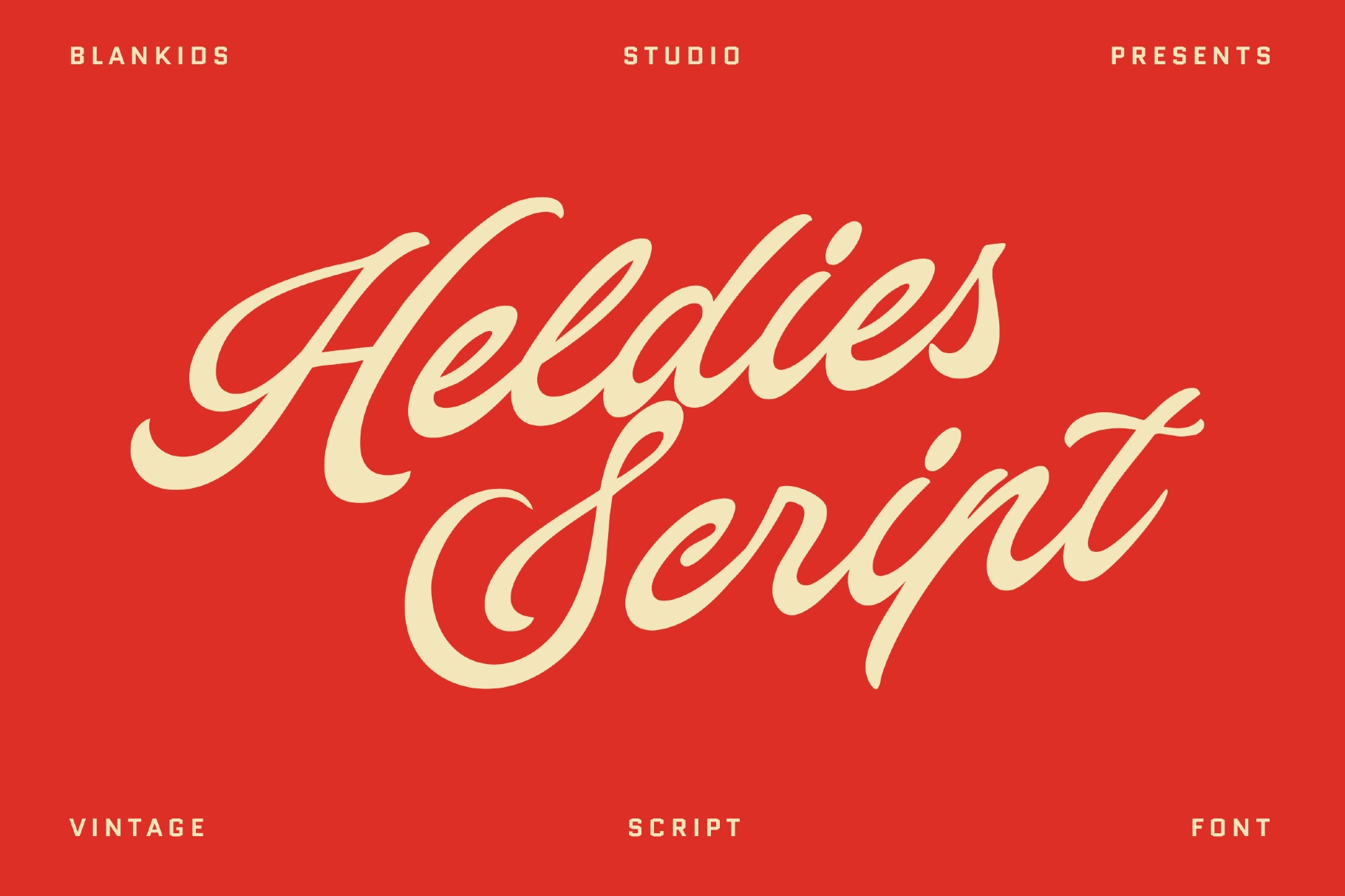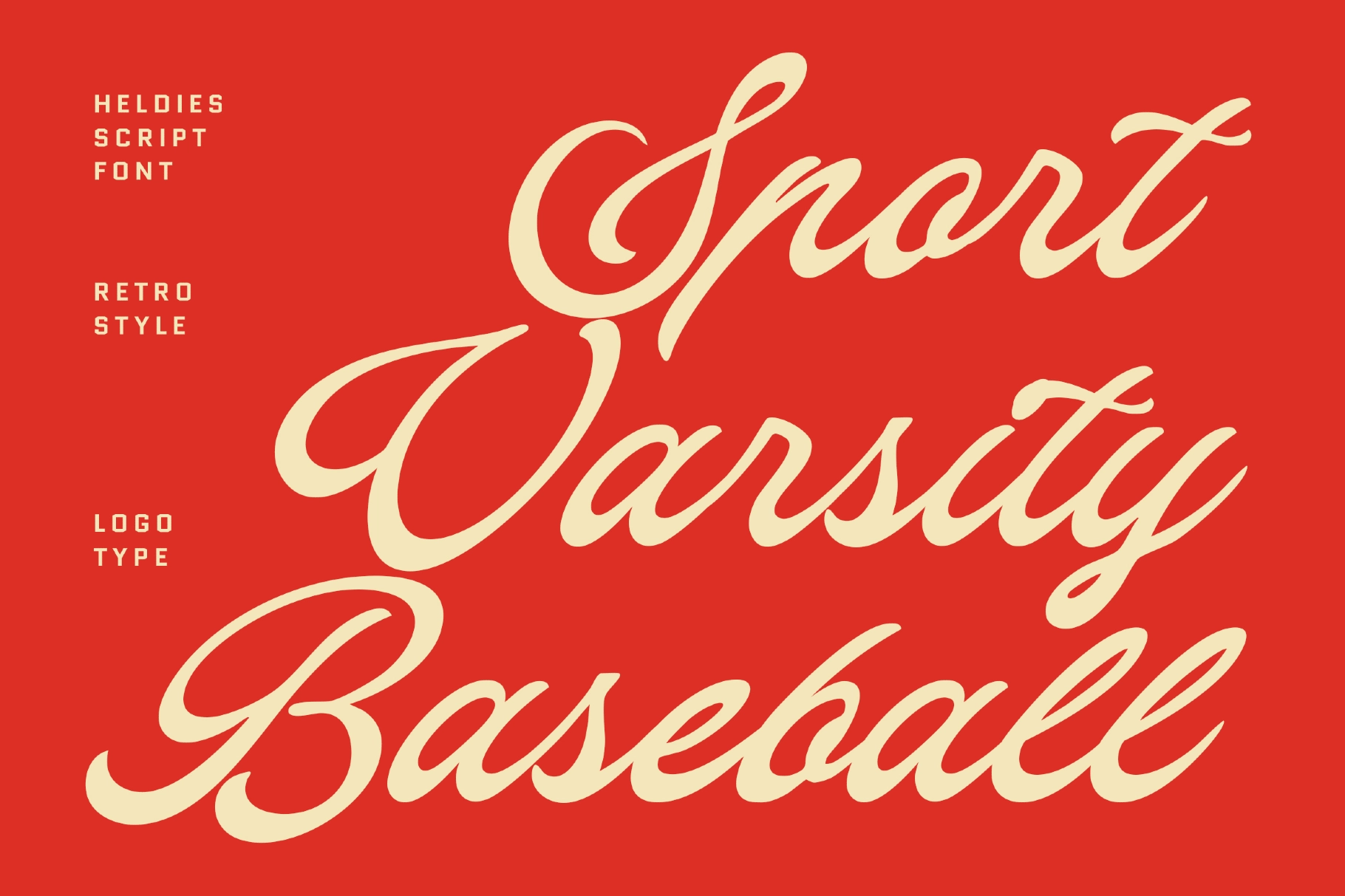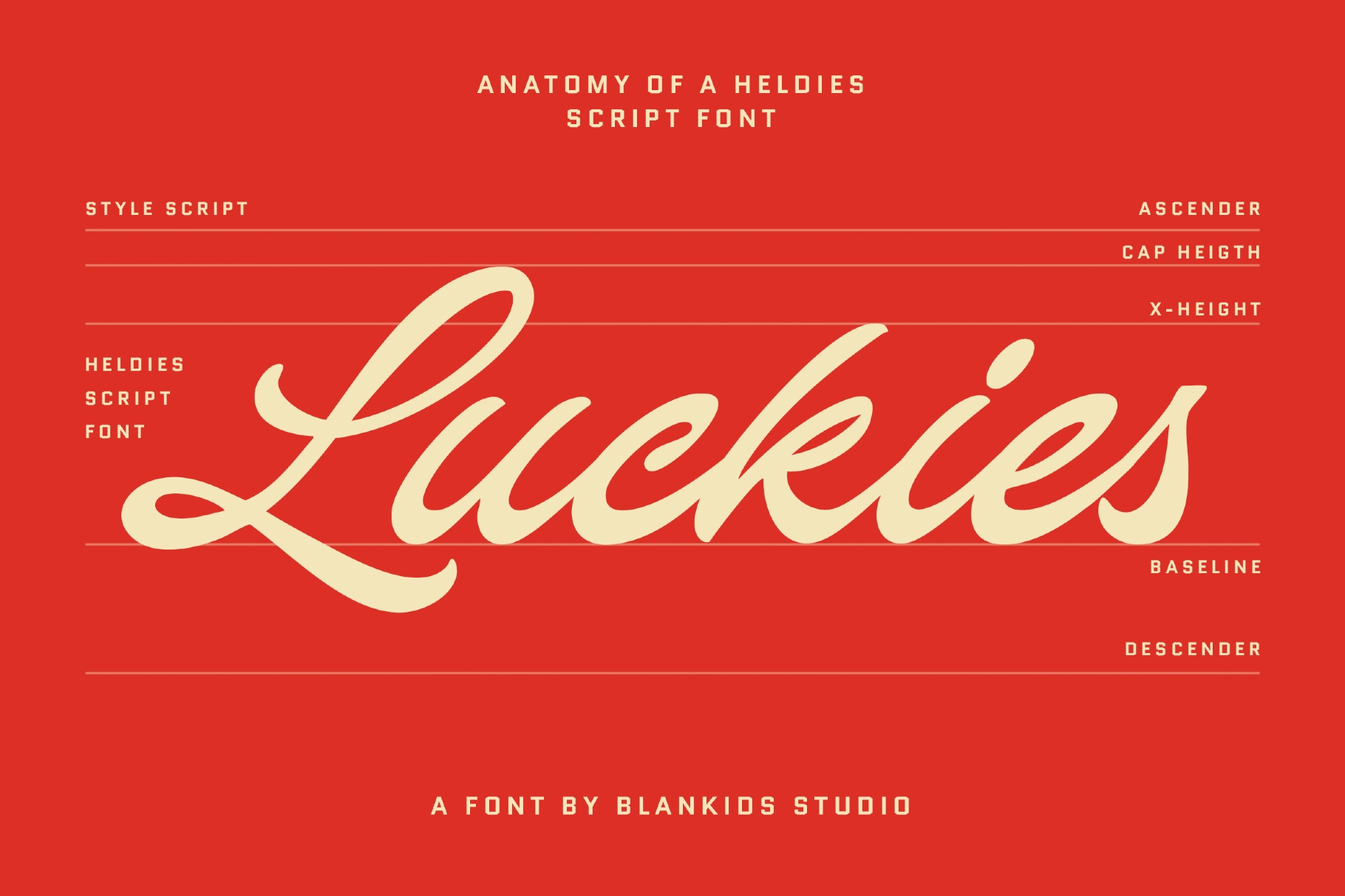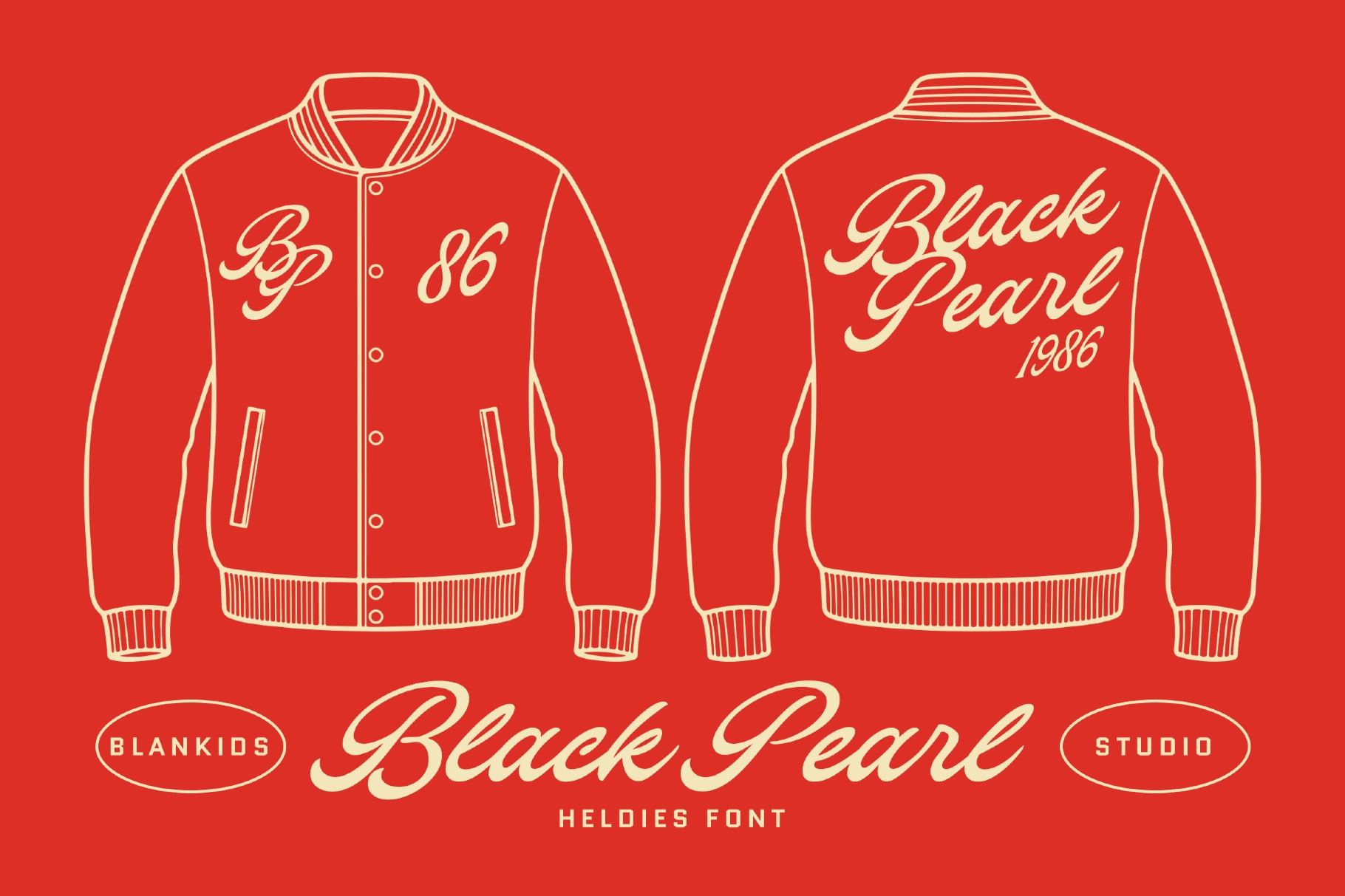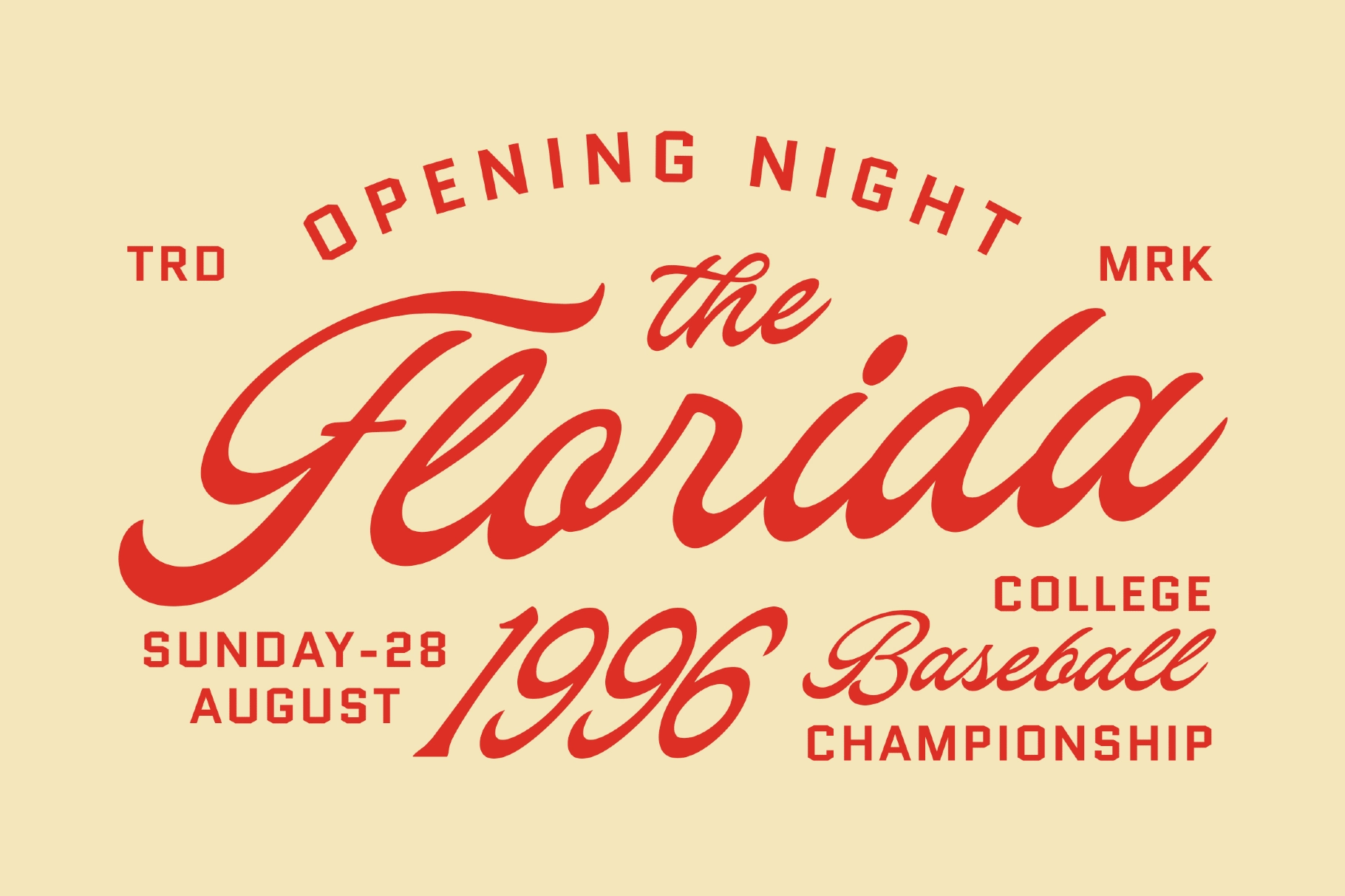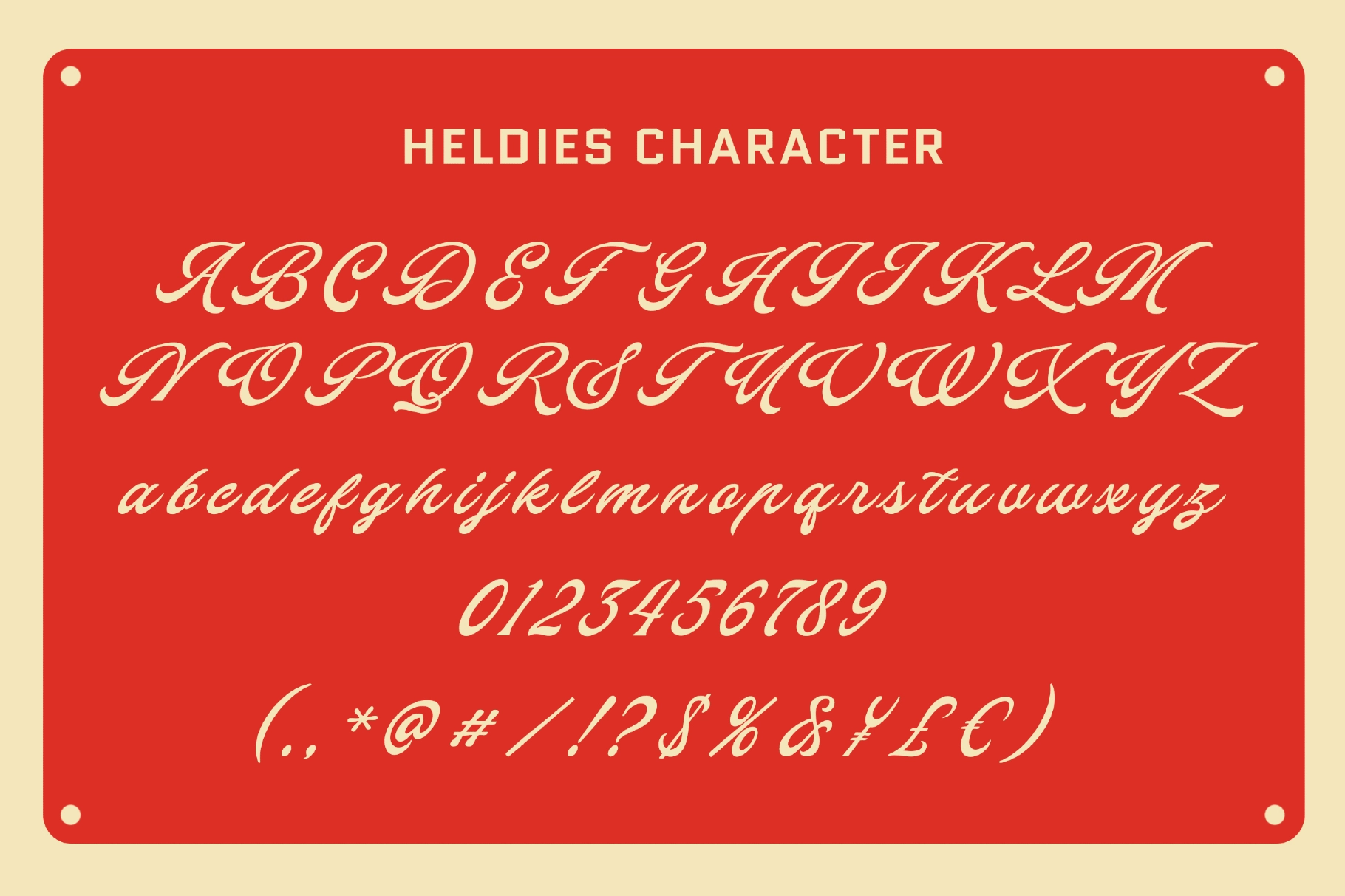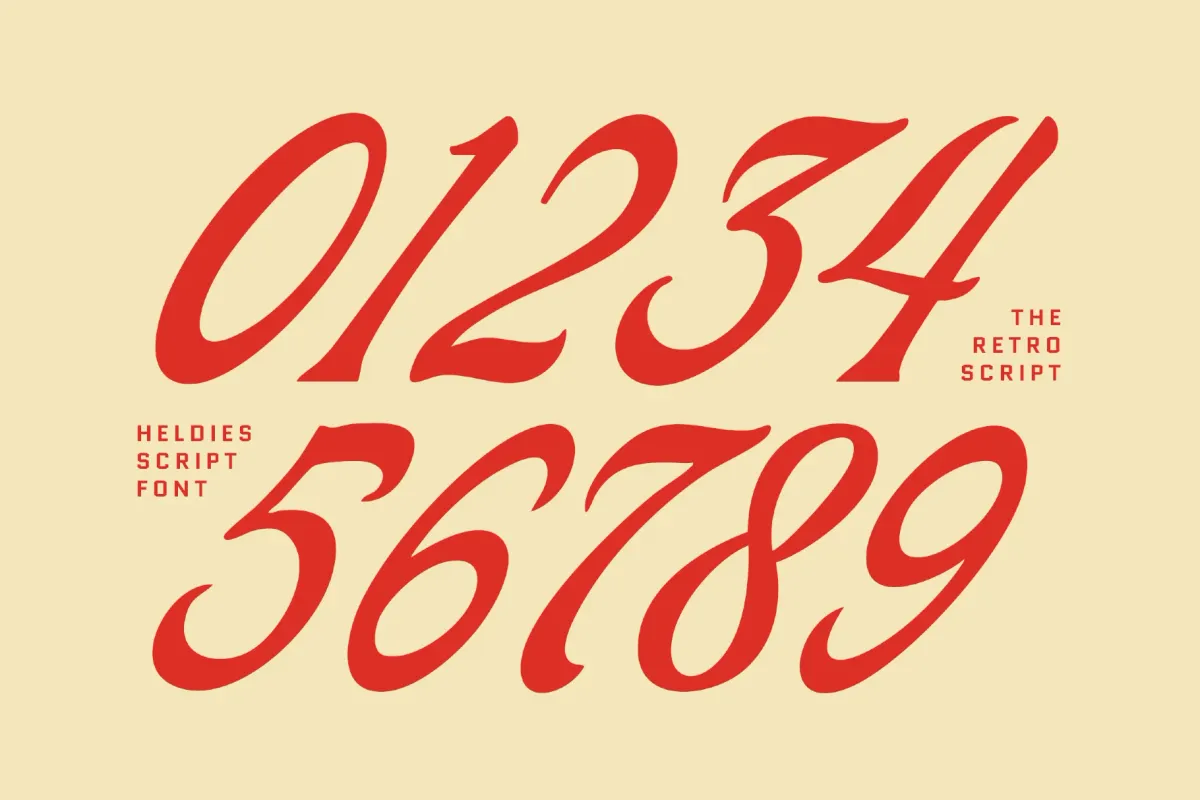
Heldies – Classic Americana Script Font
Heldies – Classic Americana Script Font is a beautifully crafted retro script typeface that infuses designs with authentic warmth, vintage charm, and timeless personality. Its flowing strokes, smooth curves, and classic letterforms evoke nostalgic Americana style while delivering modern versatility for today's creative demands.
Perfect for logos, branding packages, apparel graphics, product packaging, posters, social media content, and editorial layouts, Heldies combines expressive handwriting aesthetics with excellent readability across digital screens and print materials. The carefully balanced contrast and natural flow make it ideal for both prominent display headlines and elegant supporting text.
This classic script font brings handcrafted authenticity to wedding invitations, restaurant branding, boutique packaging, vintage-inspired ads, and lifestyle projects. Heldies – Classic Americana Script Font delivers the perfect blend of retro sophistication and contemporary clarity for designers seeking genuine typographic character.
Perfect for:
• Logo design & brand identity
• Vintage & retro projects
• T-shirt and apparel design
• Packaging & product labels
• Posters, flyers & signage
• Social media graphics
• Headlines, quotes & display text
• Handwritten vintage script style
• Smooth and elegant letterforms
• Uppercase & lowercase characters
• Numerals & punctuation
• Easy to use and highly readable